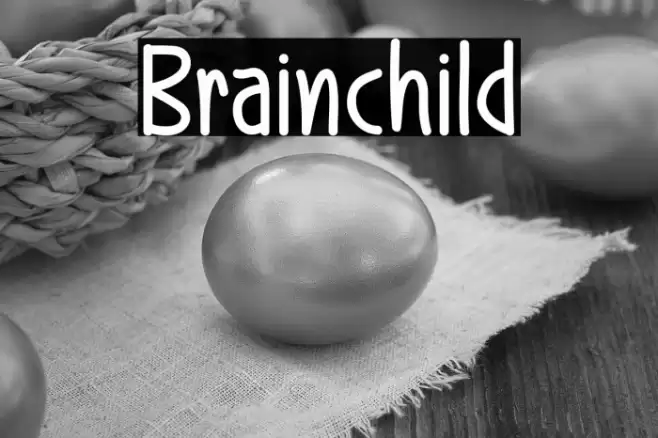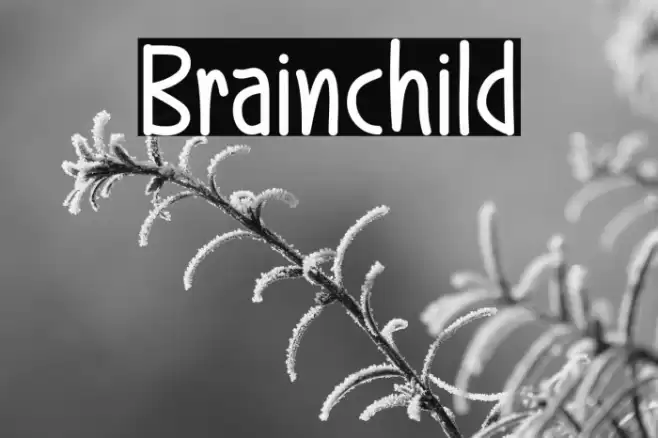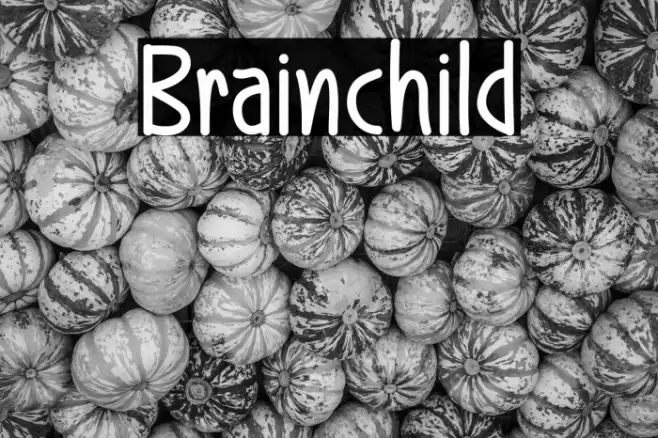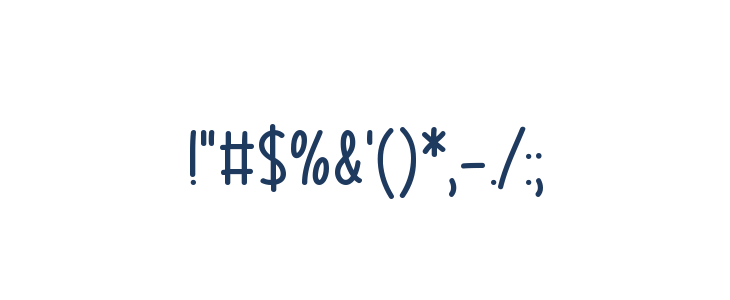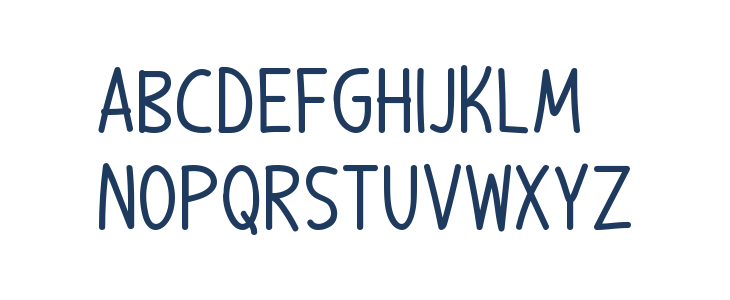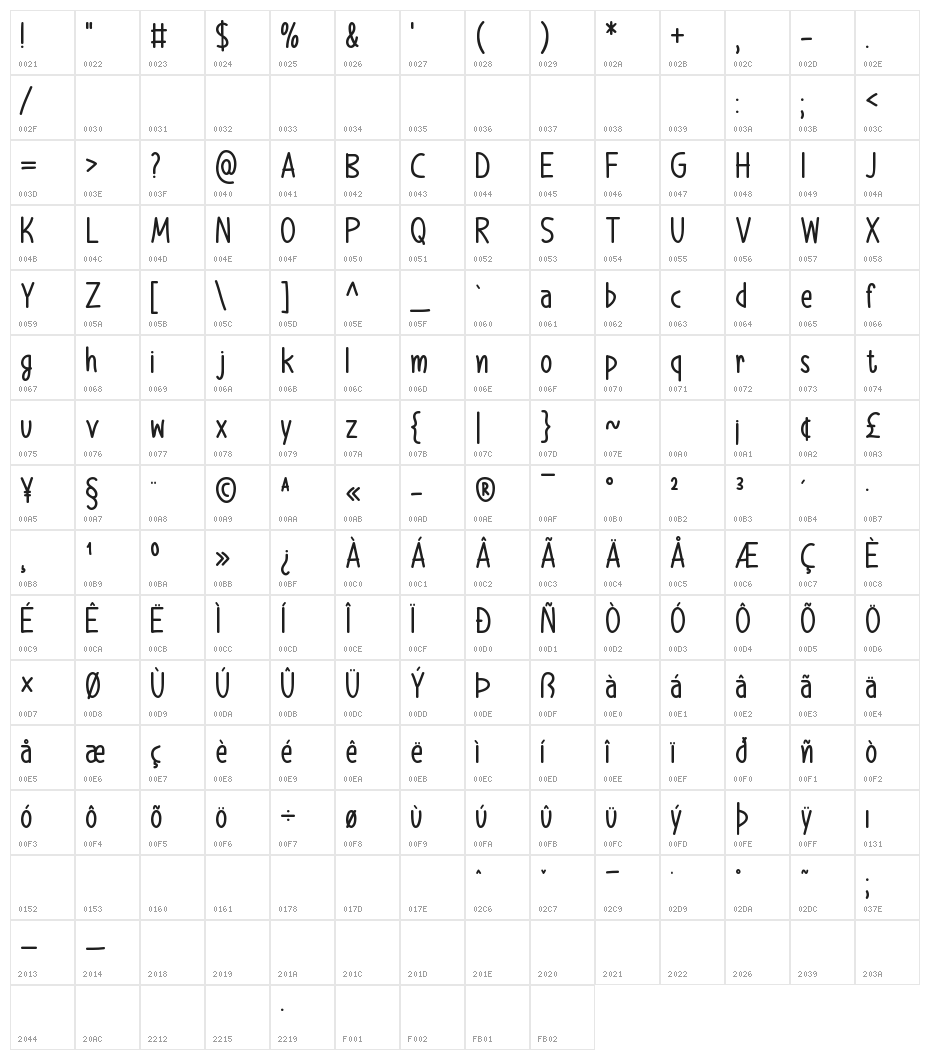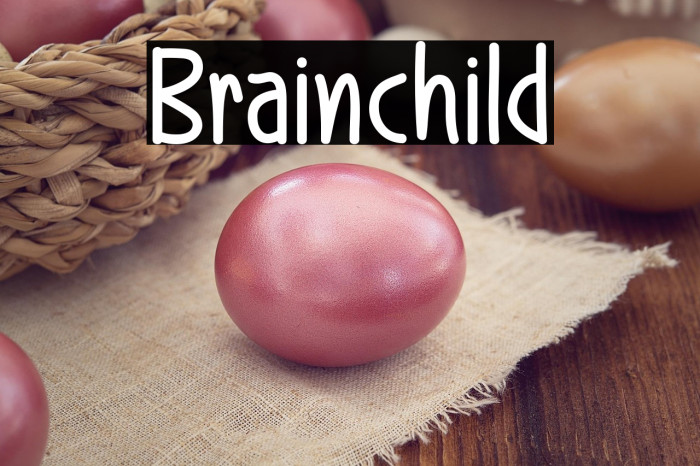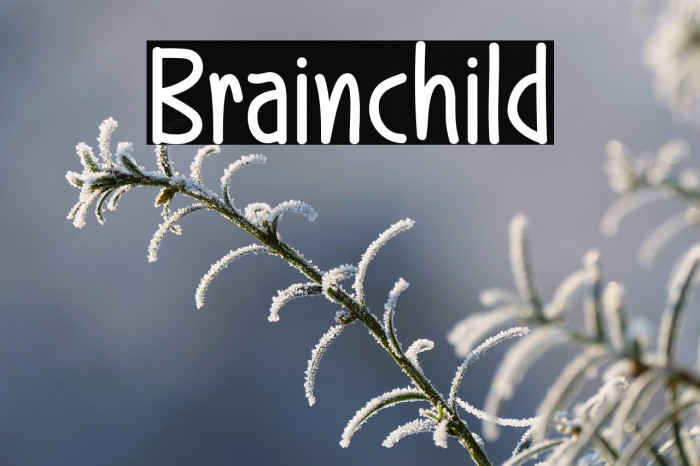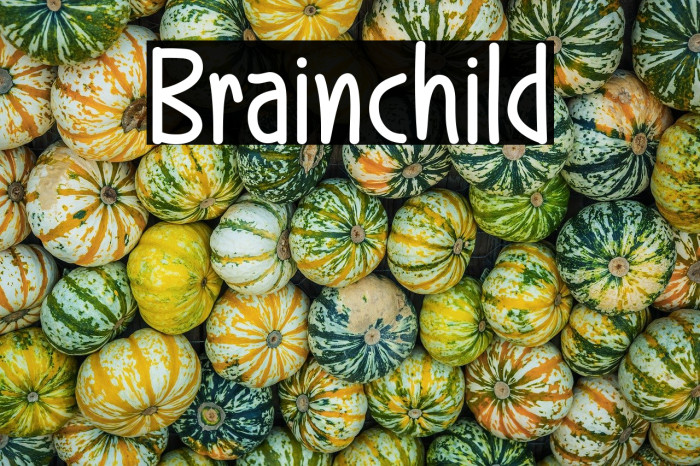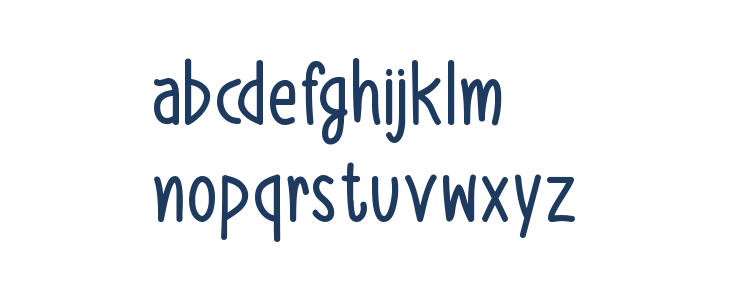
Brainchild Font
Brainchild Description
A playful, handwritten sans-serif font with tall, narrow letters and slightly irregular strokes, giving it a casual and friendly appearance. The characters have rounded terminals and consistent line thickness.
Casual handwritten sans-serif with tall, narrow forms from Uncategorized fonts.
- Font: Brainchild
- Proposed Projects: Children’s books, educational materials, posters, greeting cards, informal branding.
- Overall Style: Playful, Casual, Friendly
- Use Case: Headlines, Posters, Informal Text, Children's Content